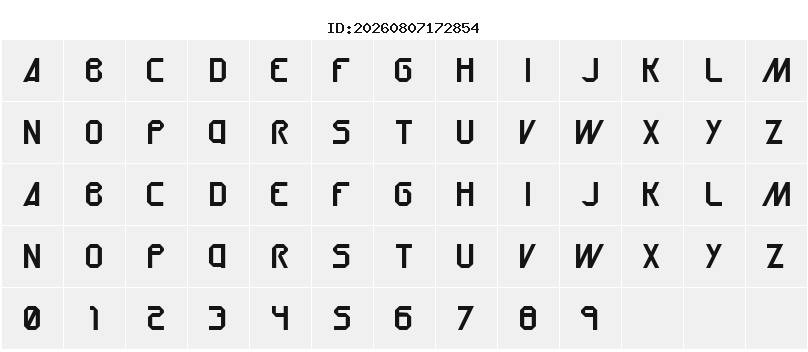
• Font Name: ORU
• Designer: GRAFIK INDUSTRIES LTD.
ORU.ttf is a modern, elegant sans-serif font designed for ultimate readability and visual harmony. Perfect for branding, headlines, web design, and print materials.